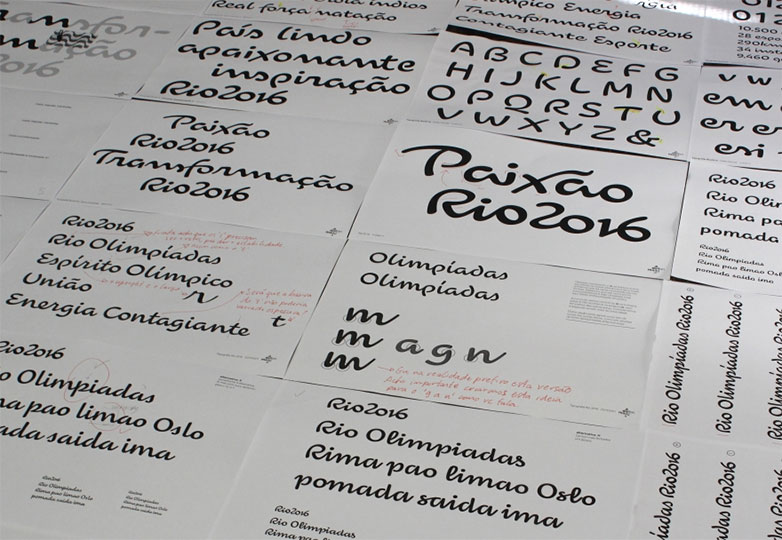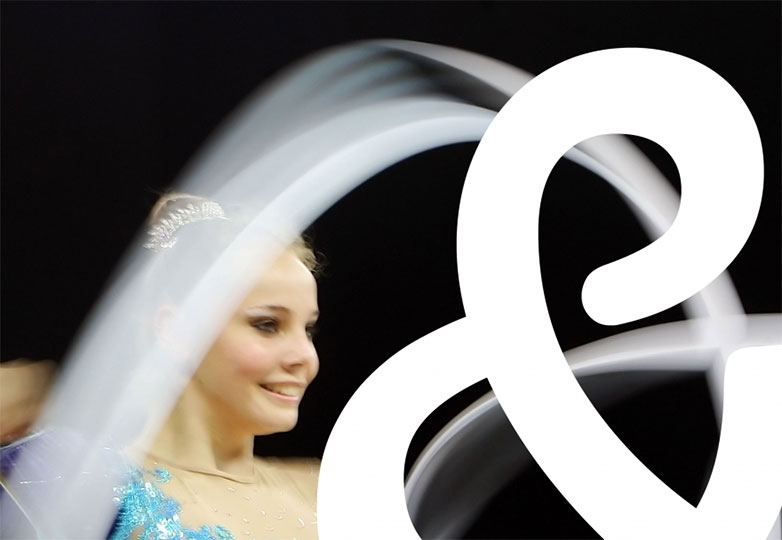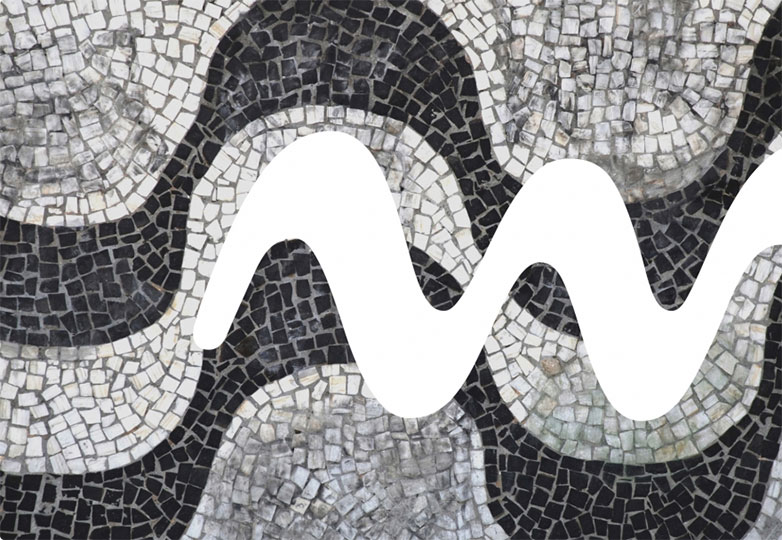
Although the 2016 Olympics in Rio de Janeiro are still years away, the official typeface for the event has already been designed and unveiled.
Rio 2016 is a fluid and graceful script, inspired by the movements of past Olympians, which brings to life the ideas of “Passion and Transformation” that are so vital to the Olympic ideals.
With Rio 2016, the Brazilian office of Dalton Maag designed a typeface that is entirely unique to the Olympics and, more importantly, to Brazil itself. Each letter is fashioned either after Olympic athletes and their movements, or certain aspects of Brazil’s geography. The letter “R”, as an example, represents the granite outcropping Pedra de Gávea which overlooks Rio from the Tijuca Forest. The characters were drawn in fast, fluid motions, in an effort to replicate sporting motion.
‘Harmonious Diversity’ is seen in the curves, as each one has a unique shape, but they work together as an integrated and unified set. The ‘Olympic Spirit’ and the ‘Paralympic Spirit’ are reflected in the fluidity of the lines, simulating the agility of the athletes’ movements. ‘Contagious Energy’ is also present in the character set, in the different height of the letters, and in the bold connections. ‘Exuberant Nature’ is present in the letters’ overall design, and finally, ‘True Engagement’ is present in the creation process, which included the participation and involvement of several different teams of people. (From the Rio 2016 website)
Rio 2016 is one of only a few fonts created entirely by a Brazilian team, resulting in a typeface that expresses the particular warmth and joyousness that embody the nature of the Brazilian people. We’re genuinely impressed with the results and look forward to seeing it in action leading up to the 2016 Olympics.